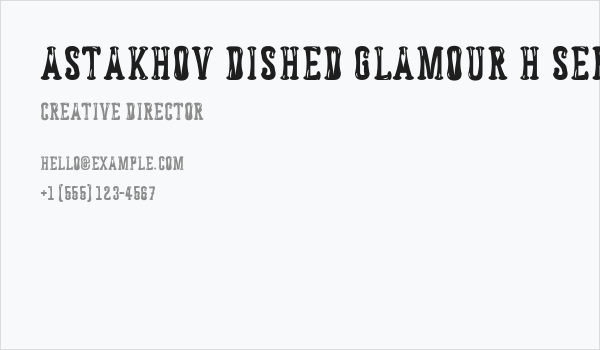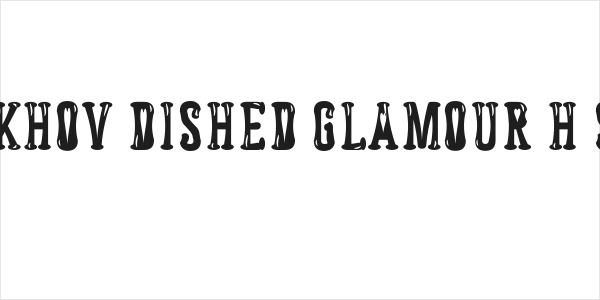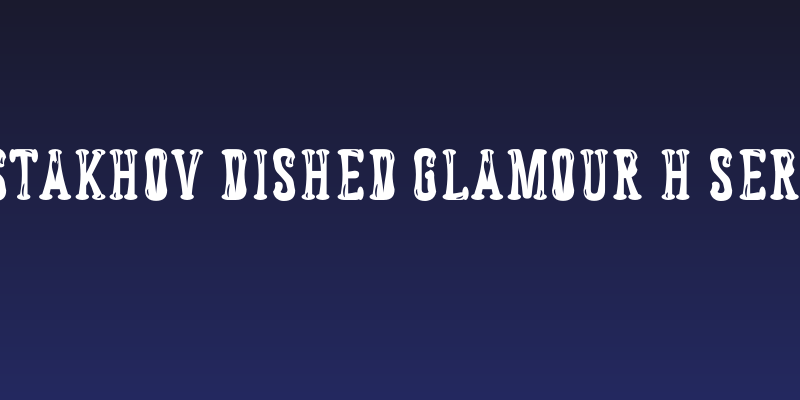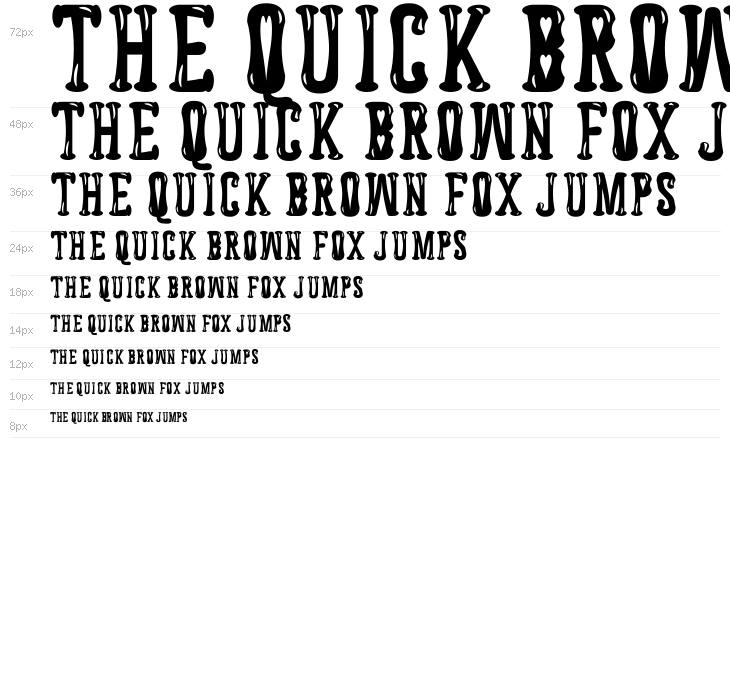
Astakhov Dished Glamour H Serif Font
Astakhov Dished Glamour H Serif Description
This font features a bold and dramatic style with high contrast between thick and thin strokes. The letters have a unique, artistic flair, incorporating decorative elements that give them a whimsical and slightly vintage feel. The serifs are pronounced, adding to the overall boldness and making each character stand out. The numbers and special characters maintain the same stylistic elements, ensuring consistency across all glyphs. This font is ideal for projects that require a strong visual impact and a touch of elegance.
| Proposed Projects | Ideal for posters, branding, headlines, and any design requiring a strong visual impact. |